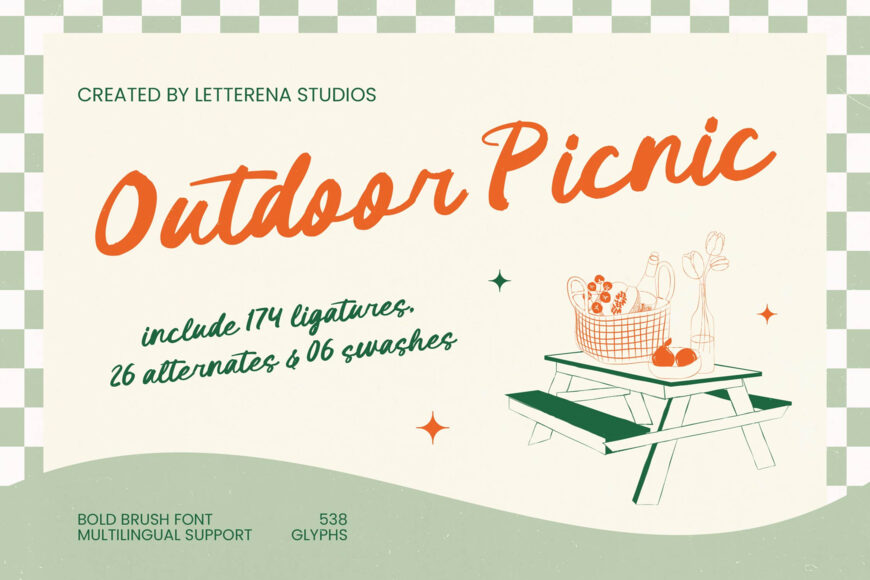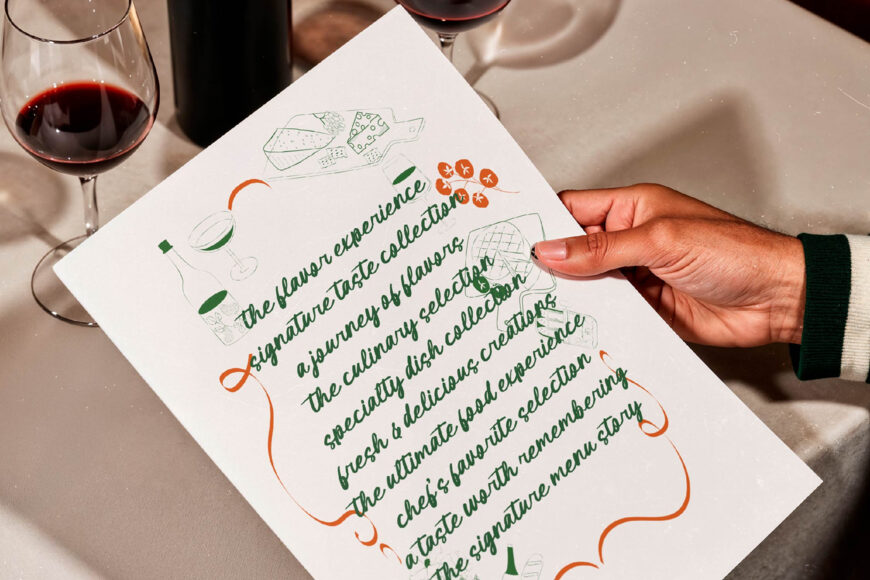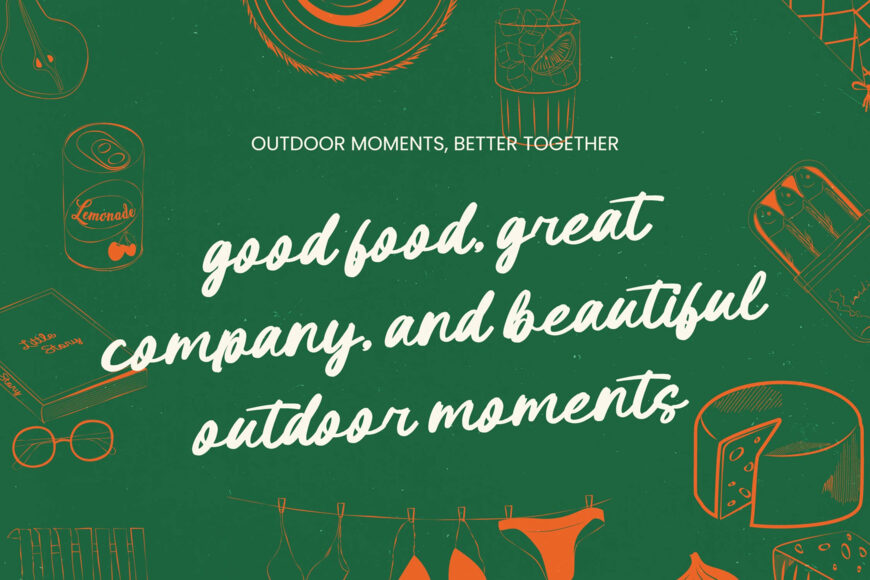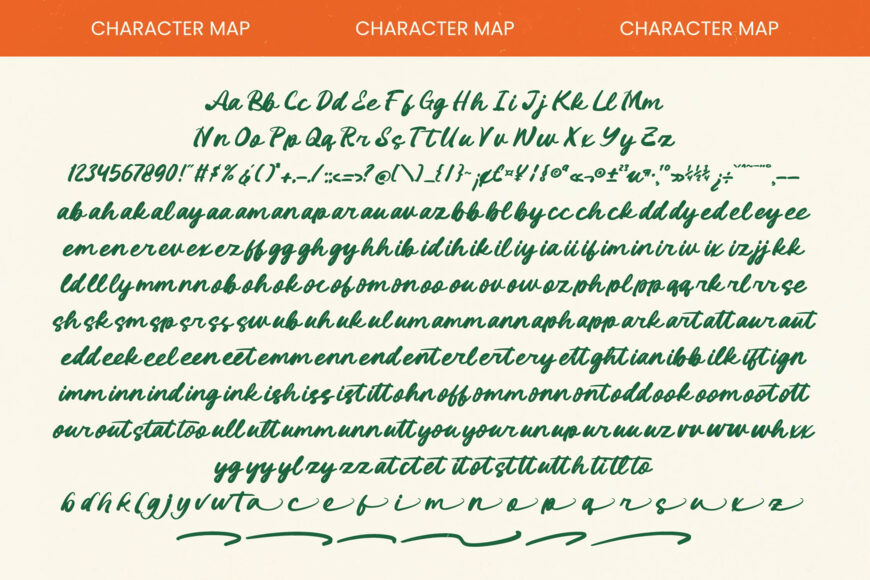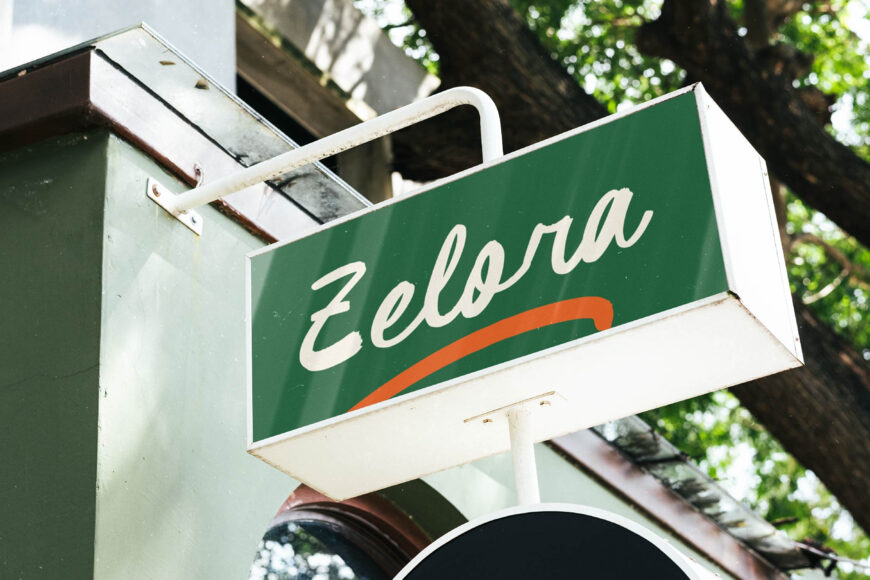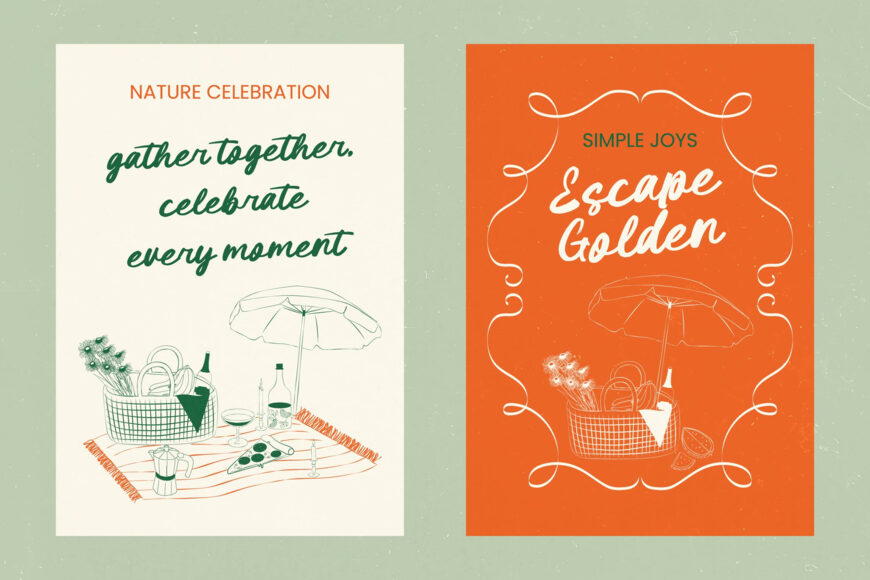
Elevate your designs with Outdoor Picnic, a bold brush font that combines warmth, craftsmanship, and authentic personality. Its lively strokes blend traditional calligraphy with a modern retro feel, giving every message approachable, high-impact character.
With 538+ glyphs, 174 ligatures, 26 alternates, and extensive multilingual support, it offers flexible customization for global branding. Perfect for artisan packaging, lifestyle identities, editorial layouts, café menus, invitations, social graphics, product labels, and environmental signage, Outdoor Picnic adds a polished yet relaxed touch wherever a memorable human element is needed.